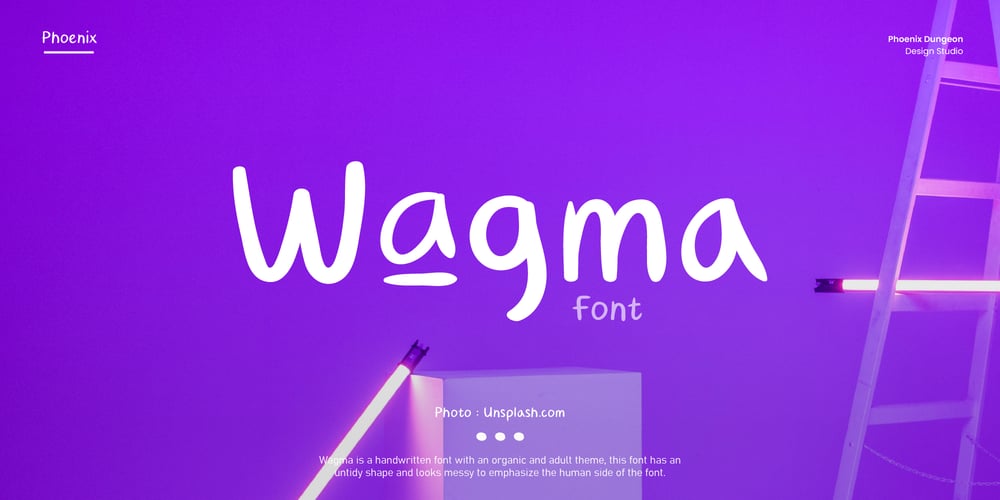
Wagma
Wagma font
Wagma Font Family was designed by Alif Naufal Muzakki and published by Phoenix Group. Wagma contains 1 styles and family package options. Wagma is a handwritten font with an organic and adult theme, this font has an untidy shape and looks messy to emphasize the human side of the font.